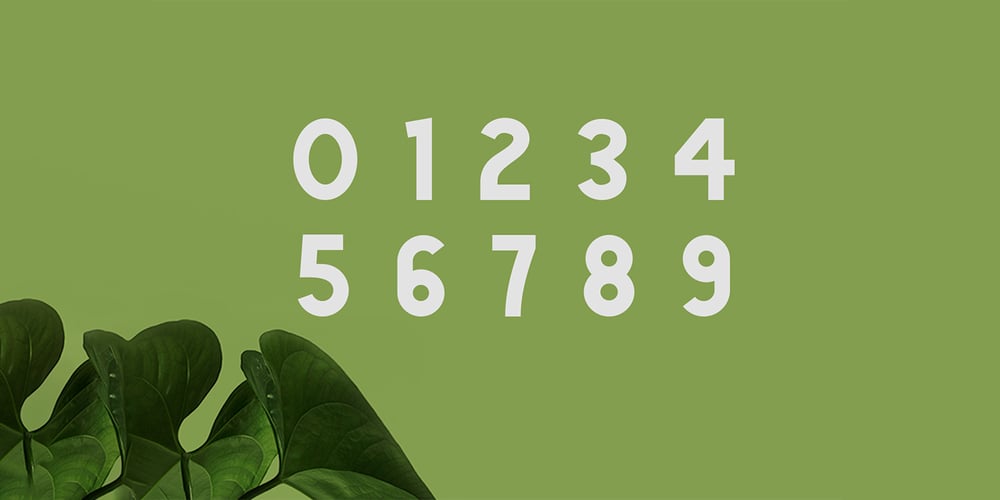
Green Narcu Font Family was designed by Muhammad Husni Haikal and published by Graphicfresh. Green Narcu contains 4 styles and family package options. Hey Guys! My new typeface Green Narcu is a playful and elegant display font, perfect for branding projects, headlines, posters and packaging!. I make this font to remind you that freshness is needed in this life. So, greenery must be cool to be seen. Therefore, we make a natural font, beauty, freshness and coolness. We hope you will feel excited when using this font.